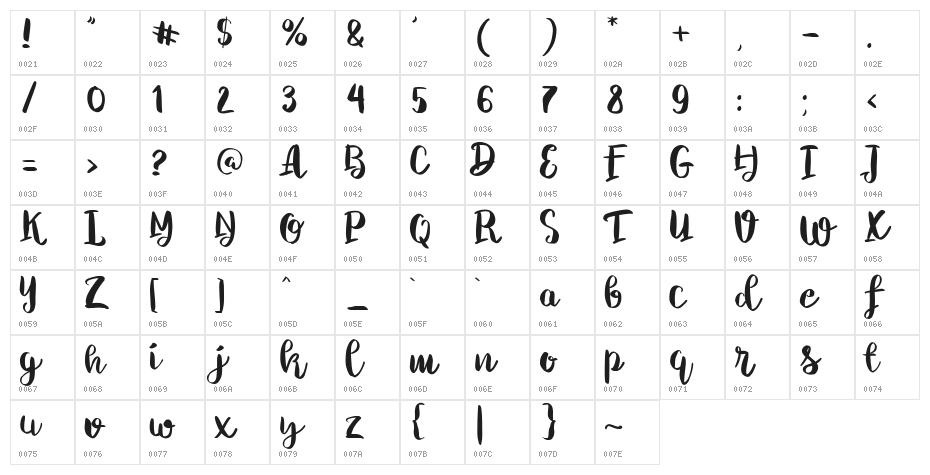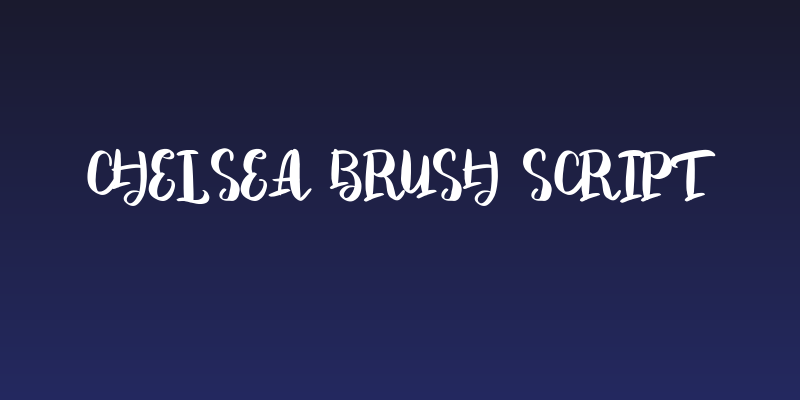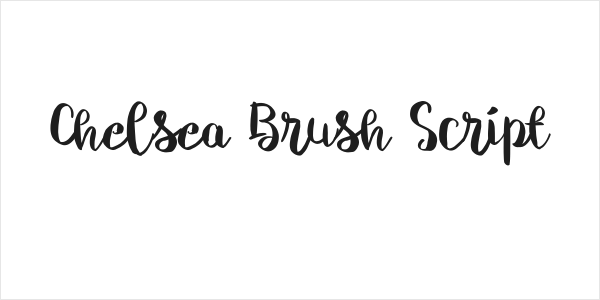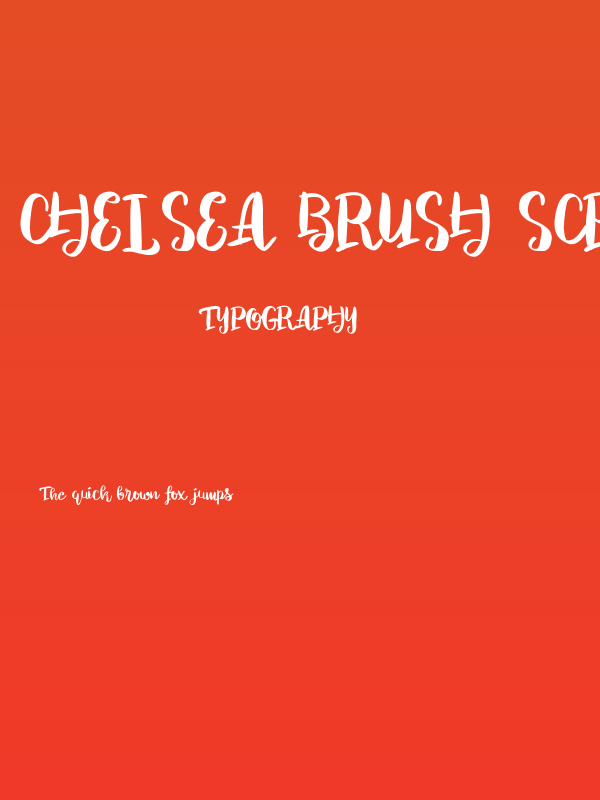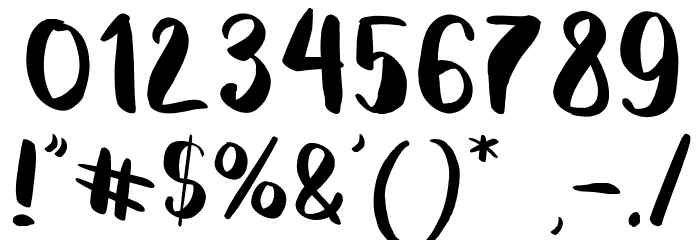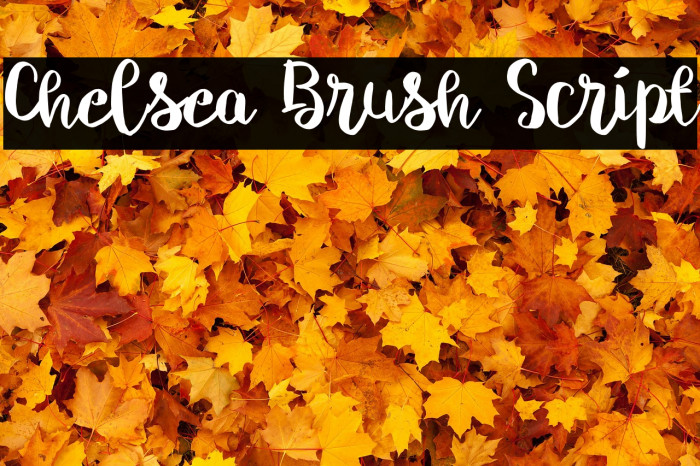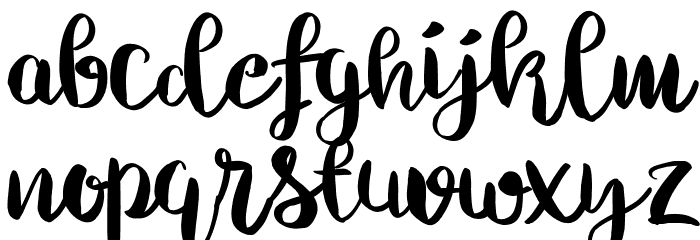
Chelsea Brush Script Font
Chelsea Brush Script Description
This font exudes a lively and expressive character, with its bold and flowing brush strokes that mimic the fluidity of hand-painted script. The uppercase letters are dynamic and slightly irregular, adding a sense of movement and spontaneity. The lowercase letters maintain a cohesive flow, with elegant loops and curves that enhance its artistic appeal. The numerals are bold and consistent, complementing the overall style. Special characters are creatively designed, maintaining the playful and artistic essence of the font. Its boldness and unique style make it ideal for projects that require a personal and artistic touch.